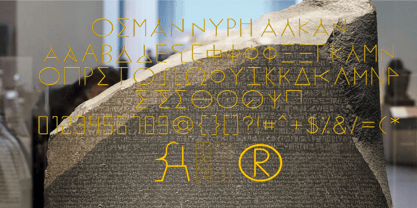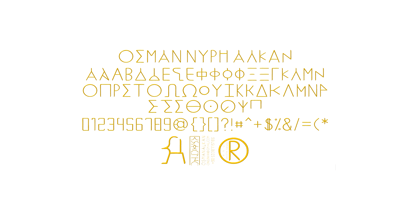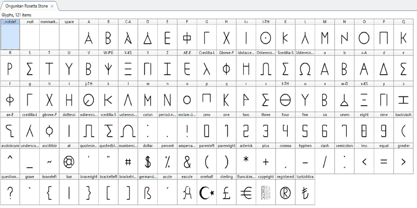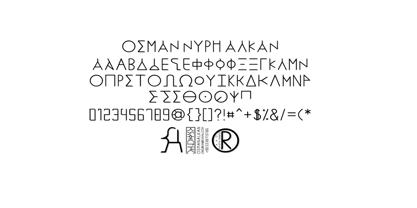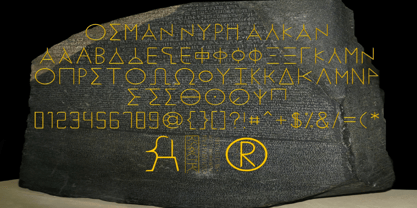
Ongunkan Rosetta Stone Greek
The Ongunkan Rosetta Stone Greek Font Family was designed by Osman Nuri ALKAN and published by Runic World Tamgacı. Ongunkan Rosetta Stone Greek contains 1 styles. More about this family
The Rosetta Stone is a stele of granodiorite inscribed with three versions of a decree issued in 196 BC during the Ptolemaic dynasty of Egypt, on behalf of King Ptolemy V Epiphanes. The top and middle texts are in Ancient Egyptian using hieroglyphic and Demotic scripts, respectively, while the bottom is in Ancient Greek. The decree has only minor differences across the three versions, making the Rosetta Stone key to deciphering the Egyptian scripts.   The stone was carved during the Hellenistic period and is believed to have originally been displayed within a temple, possibly at Sais. It was probably moved in late antiquity or during the Mamluk period, and was eventually used as building material in the construction of Fort Julien near the town of Rashid (Rosetta) in the Nile Delta. It was found there in July 1799 by French army officer Pierre-François Bouchard during France's invasion of Egypt. It was the first Ancient Egyptian bilingual text recovered in modern times, and it aroused widespread public interest with its potential to decipher this previously untranslated hieroglyphic script. Lithographic copies and plaster casts soon began circulating among European museums and scholars. When the British defeated the French, they took the stone to London under the terms of the Capitulation of Alexandria in 1801. Since 1802, it has been on public display at the British Museum almost continuously and it is the most visited object there.
Ongunkan Rosetta Stone Greek